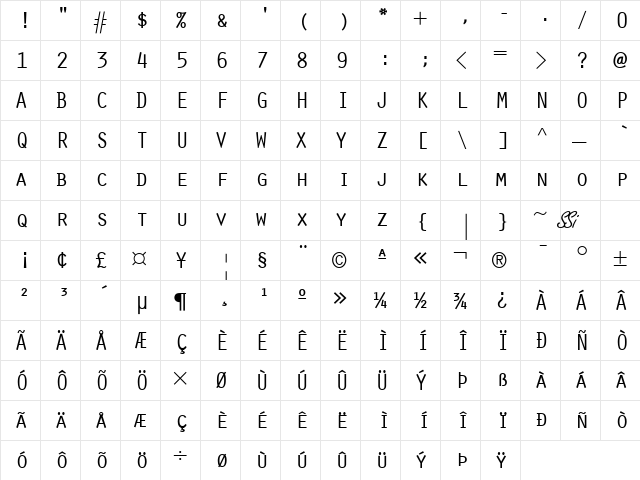
Scribe SSi Small Caps
Design Context for Scribe SSi Typeface
Scribe SSi is a composed and adaptable typeface that performs quietly and consistently across a wide range of design contexts.